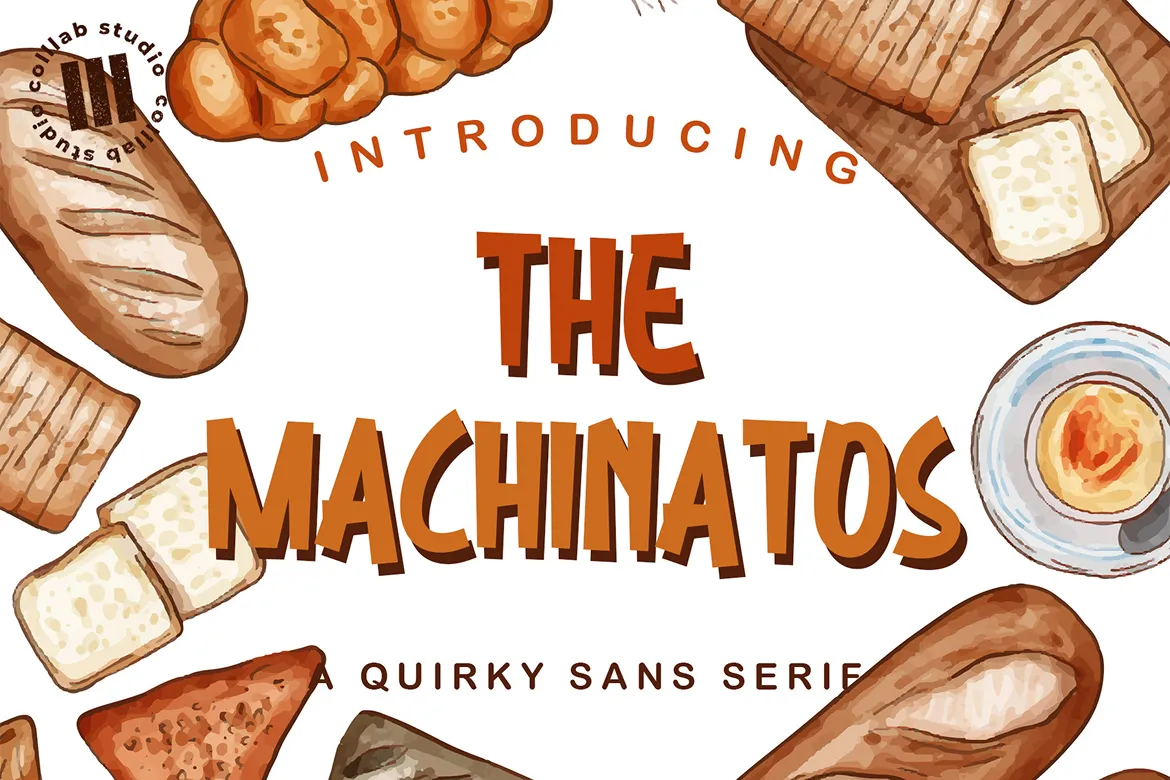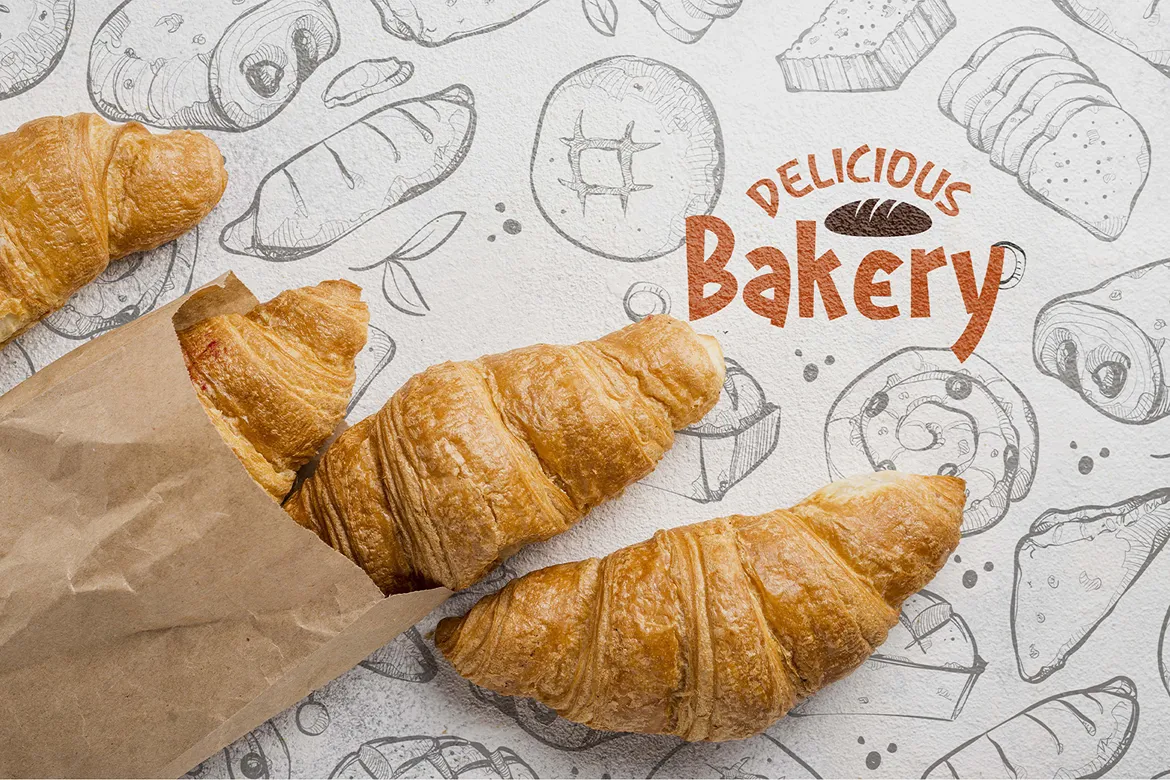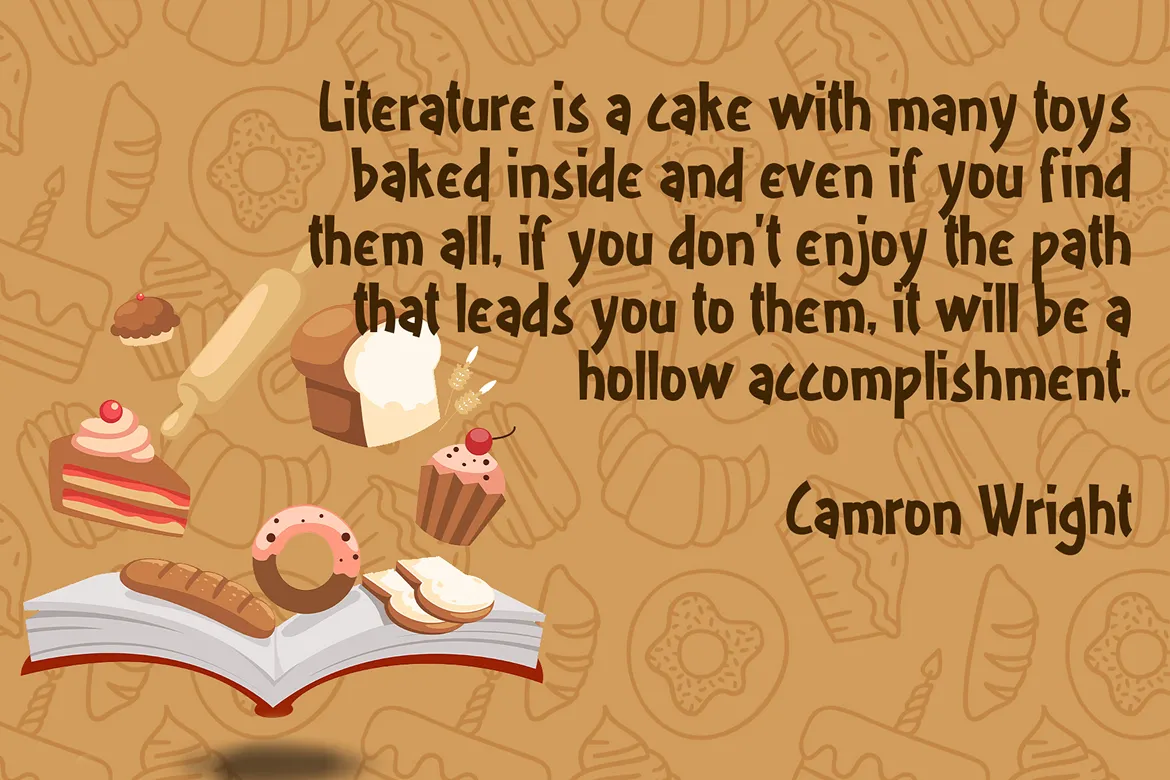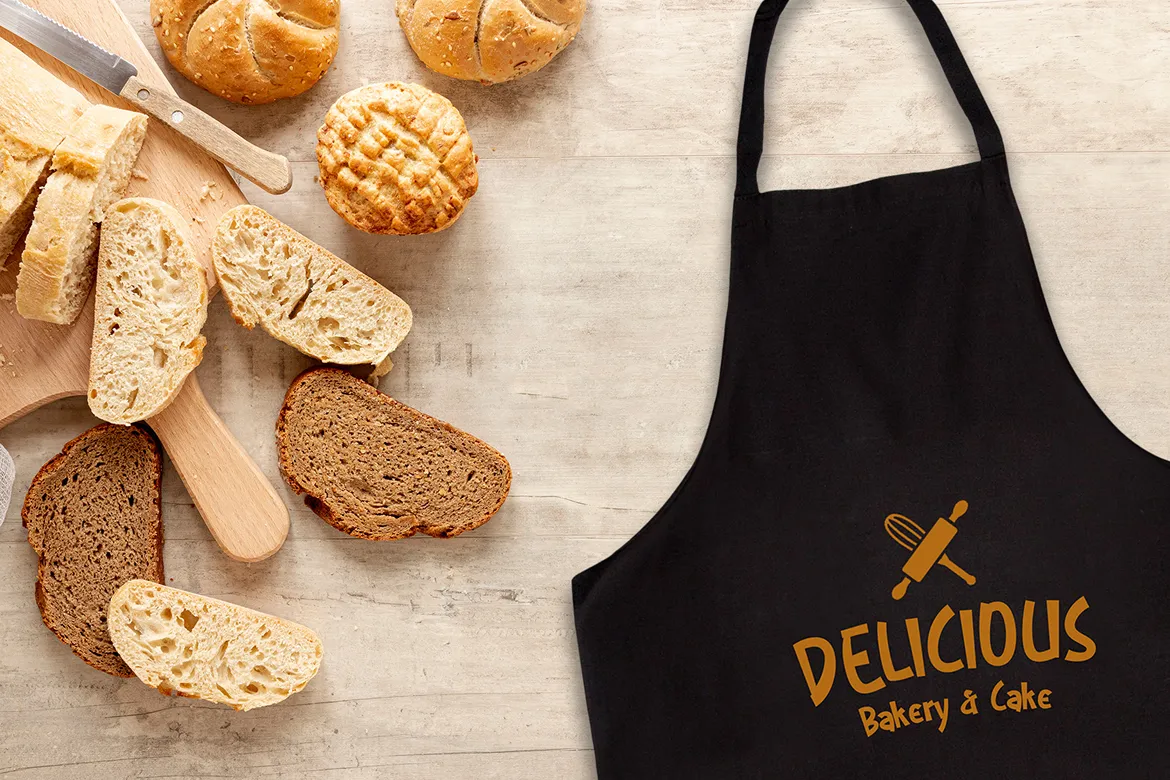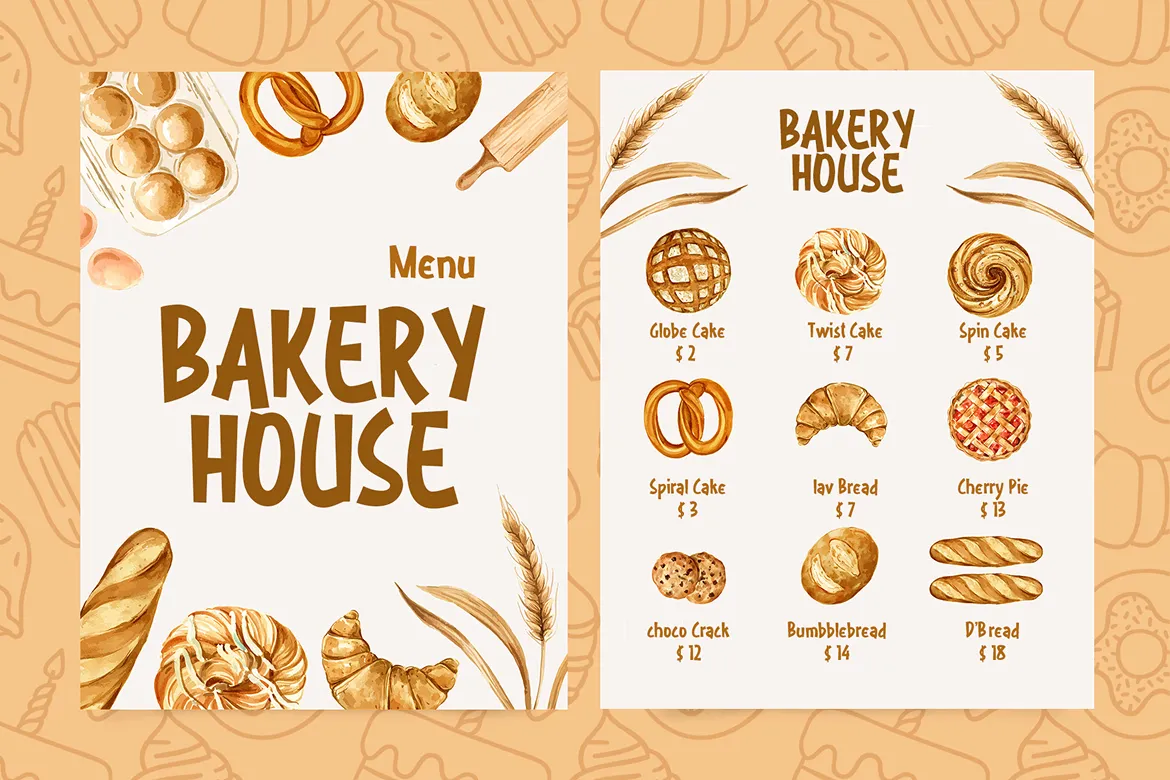
The Machinatos is a quirky sans-serif font that combines playful character with a handmade calligraphy touch. Its irregular baseline and decorative style give it a lively, personal feel, making it a perfect option for projects that need both modernity and warmth. Whether you’re designing wedding invitations, thank you cards, greeting cards, quotes, or branding elements, The Machinatos adds a unique voice to your work.
The Machinatos is inspired by the imperfect beauty of hand-drawn lettering. By blending sans-serif clarity with calligraphic flair, it brings a modern yet organic charm—perfect for feminine, creative, and trendy projects.
Uppercase & lowercase characters
Numbers & punctuation
Multilingual support